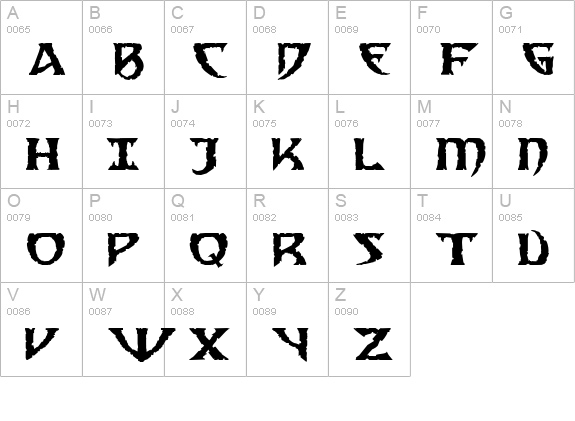
Samedi Demo Font Details
Introducing Samedi Demo font, a stunning display typeface that will add a touch of elegance and sophistication to any design project. With its unique and intricate letterforms, this font is perfect for creating eye-catching headlines, logos, and branding materials. Samedi Demo font features a harmonious balance between bold and delicate strokes, giving it a sophisticated yet playful vibe. Its carefully crafted details make it stand out from the crowd, making your designs truly memorable. What makes Samedi Demo font even more remarkable is that it is available for free! That's right, you can download this extraordinary font at FontsMarket.com without spending a dime. Whether you're a professional designer or simply someone who enjoys experimenting with typography, Samedi Demo font will surely become a valuable addition to your font collection. Don't miss out on the opportunity to elevate your designs to the next level with Samedi Demo font. Download it for free at FontsMarket.com and let your creativity soar.